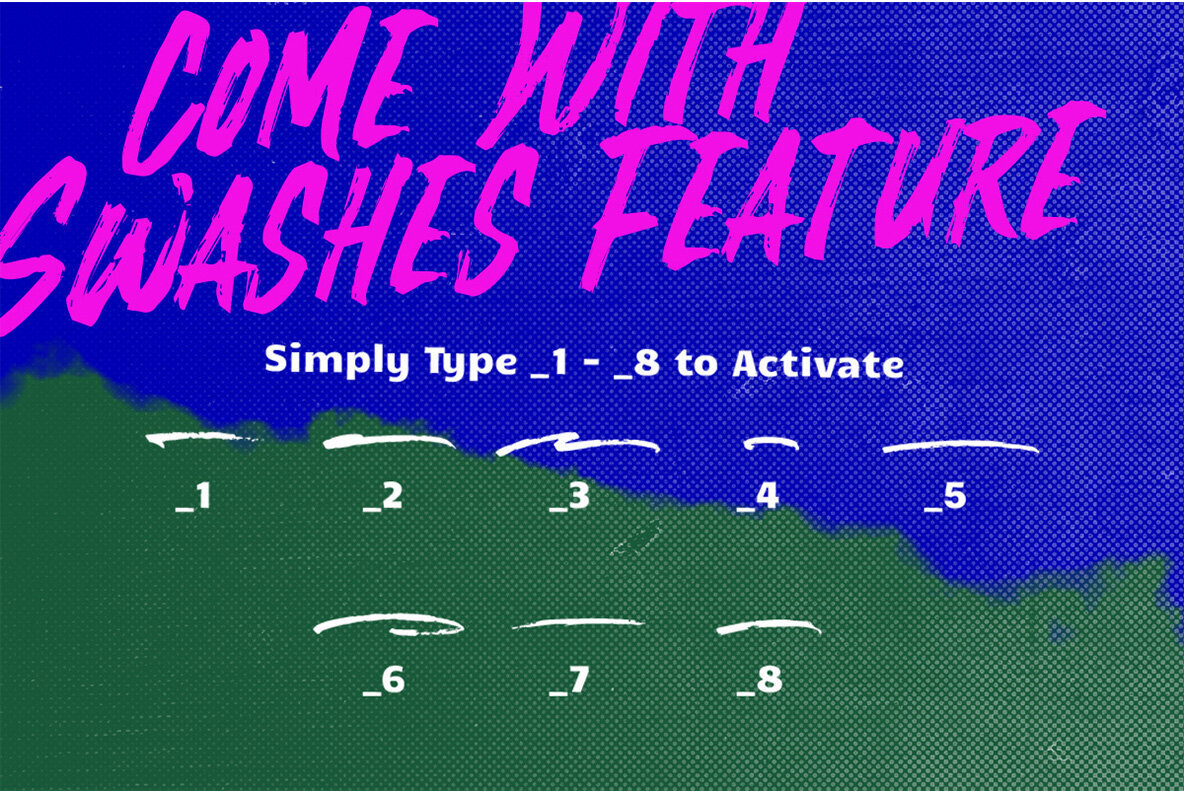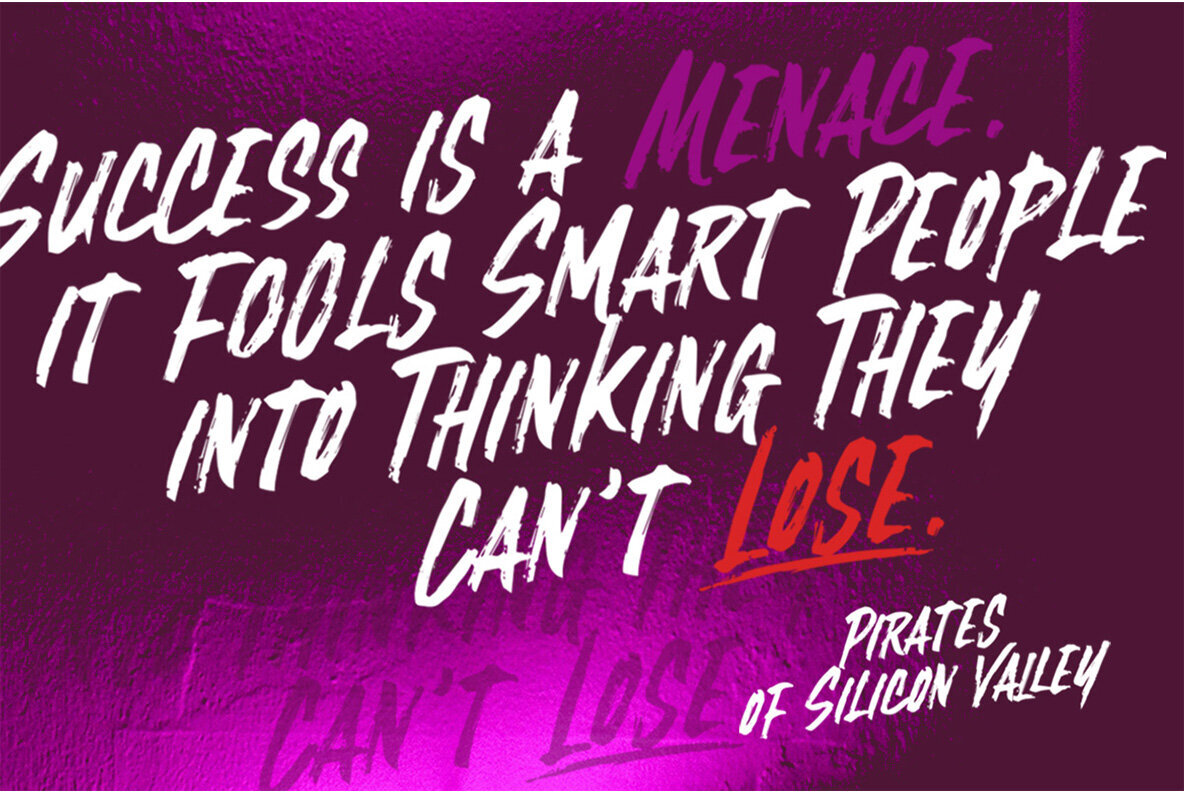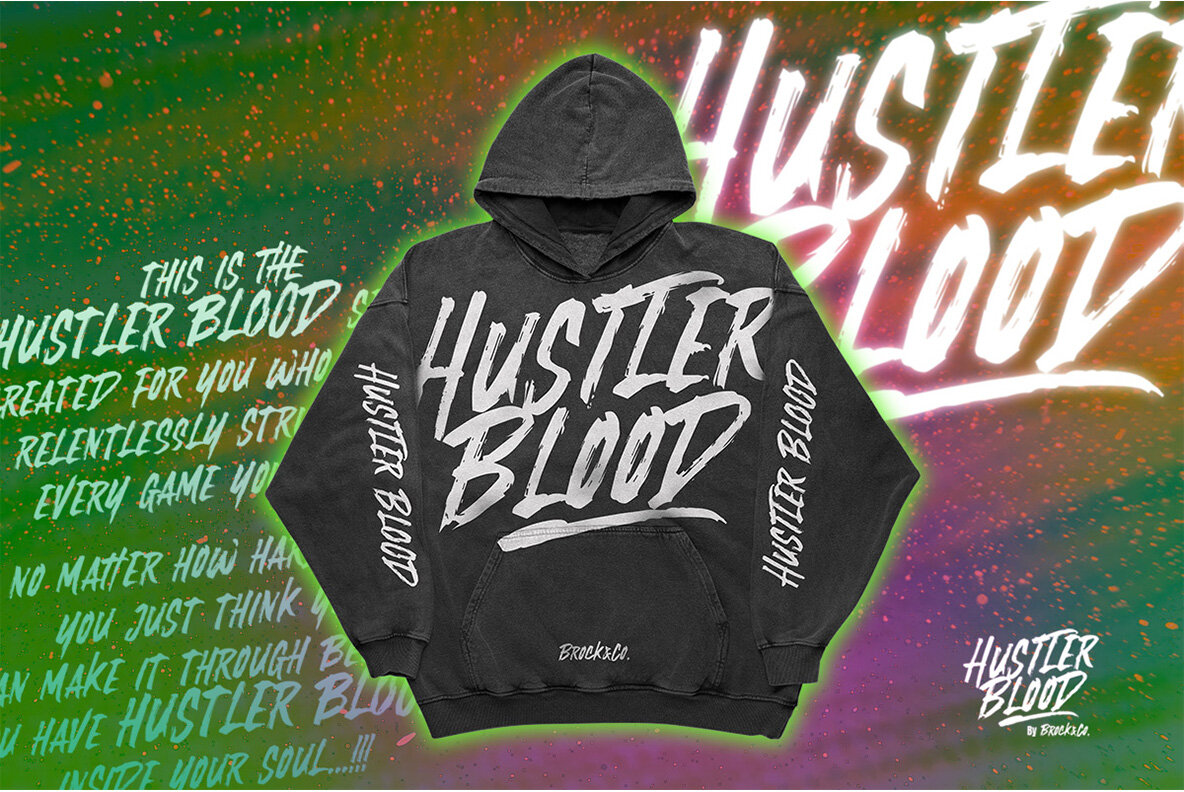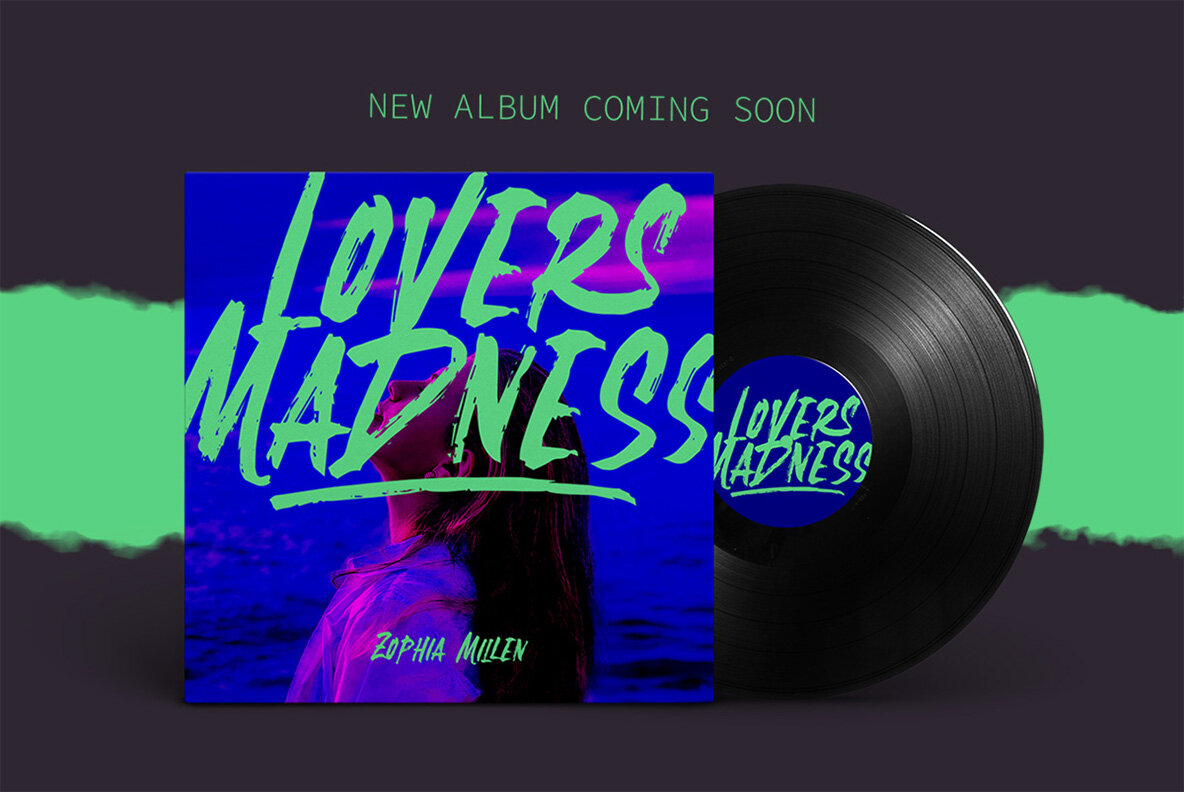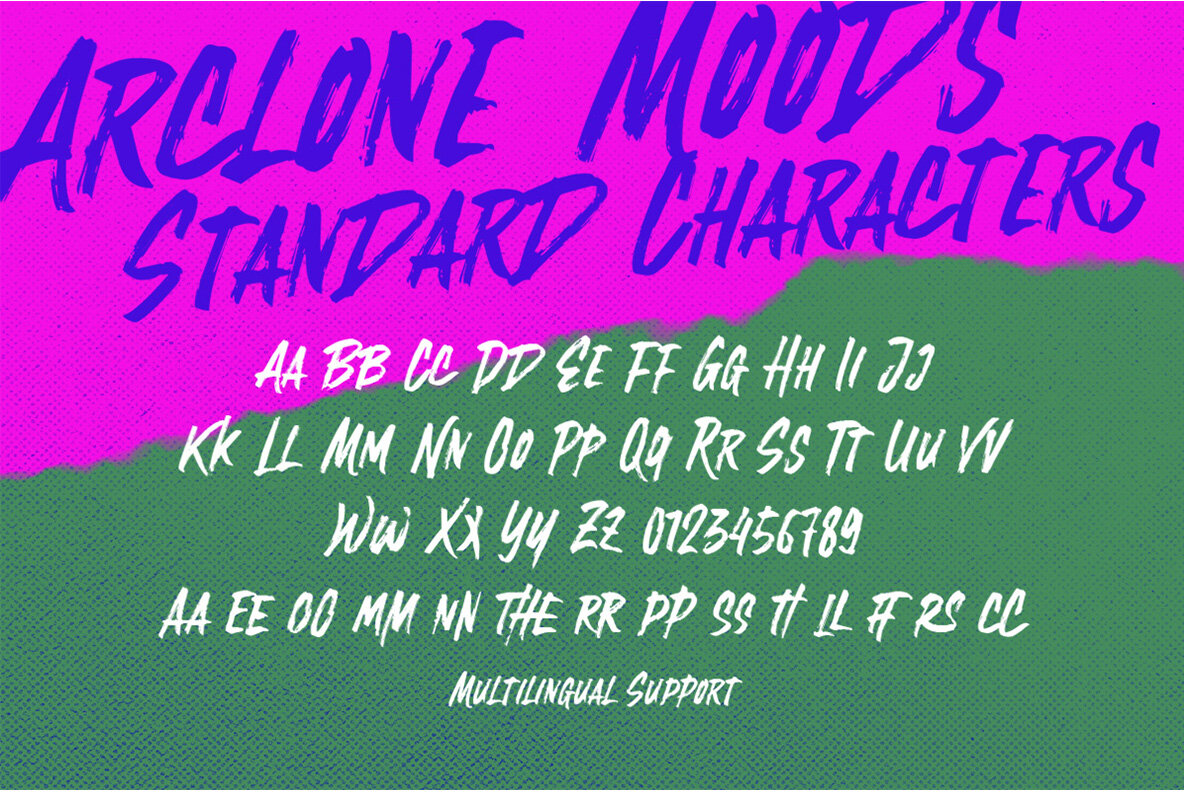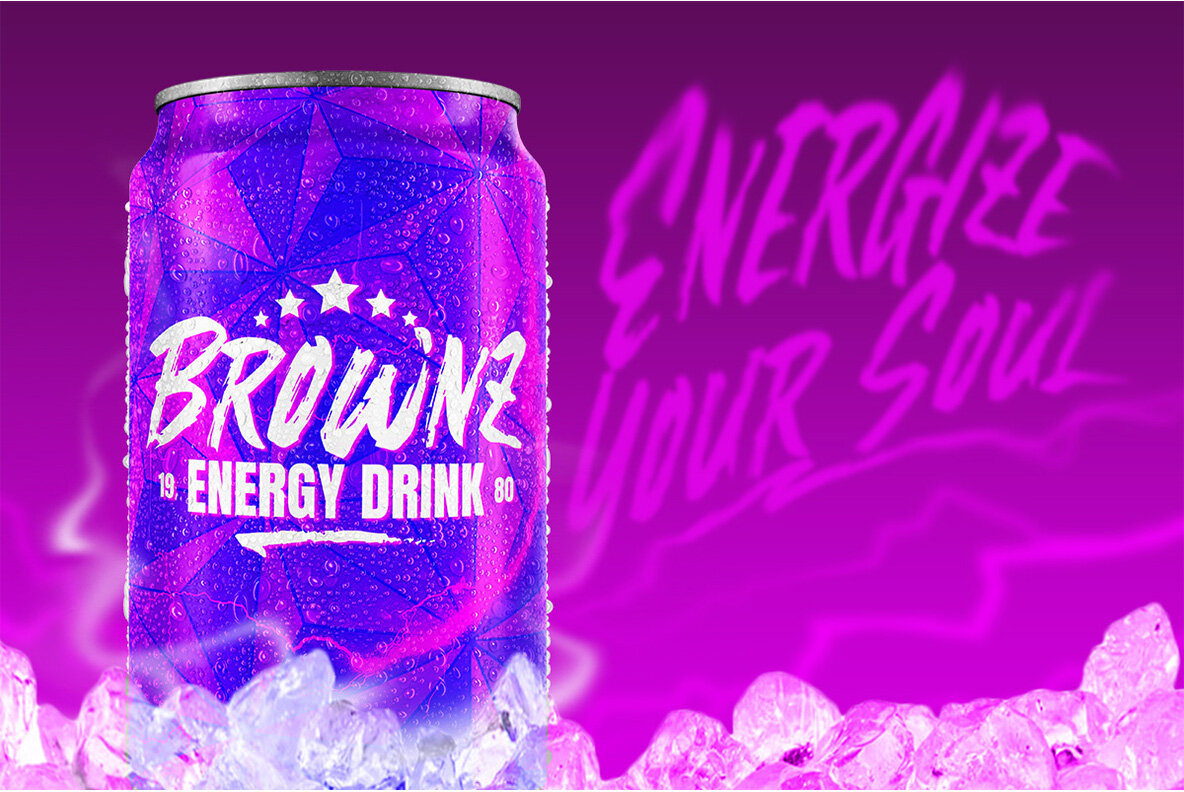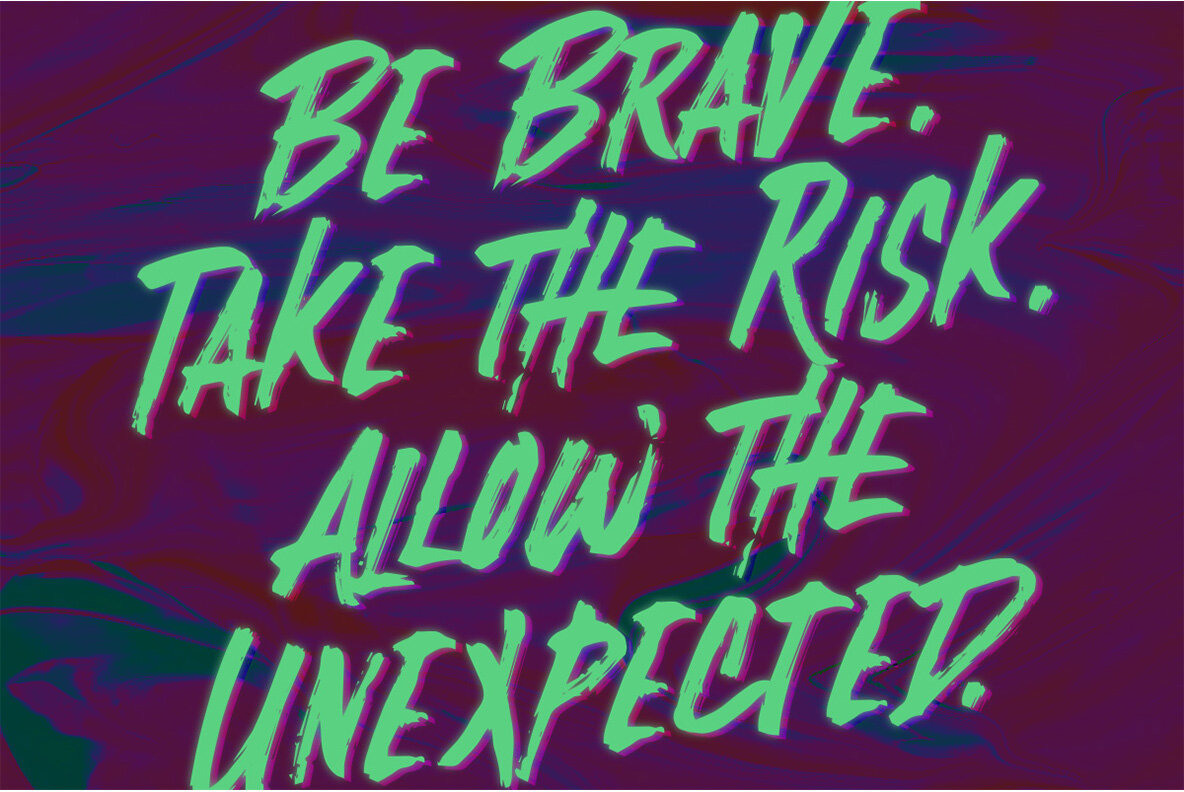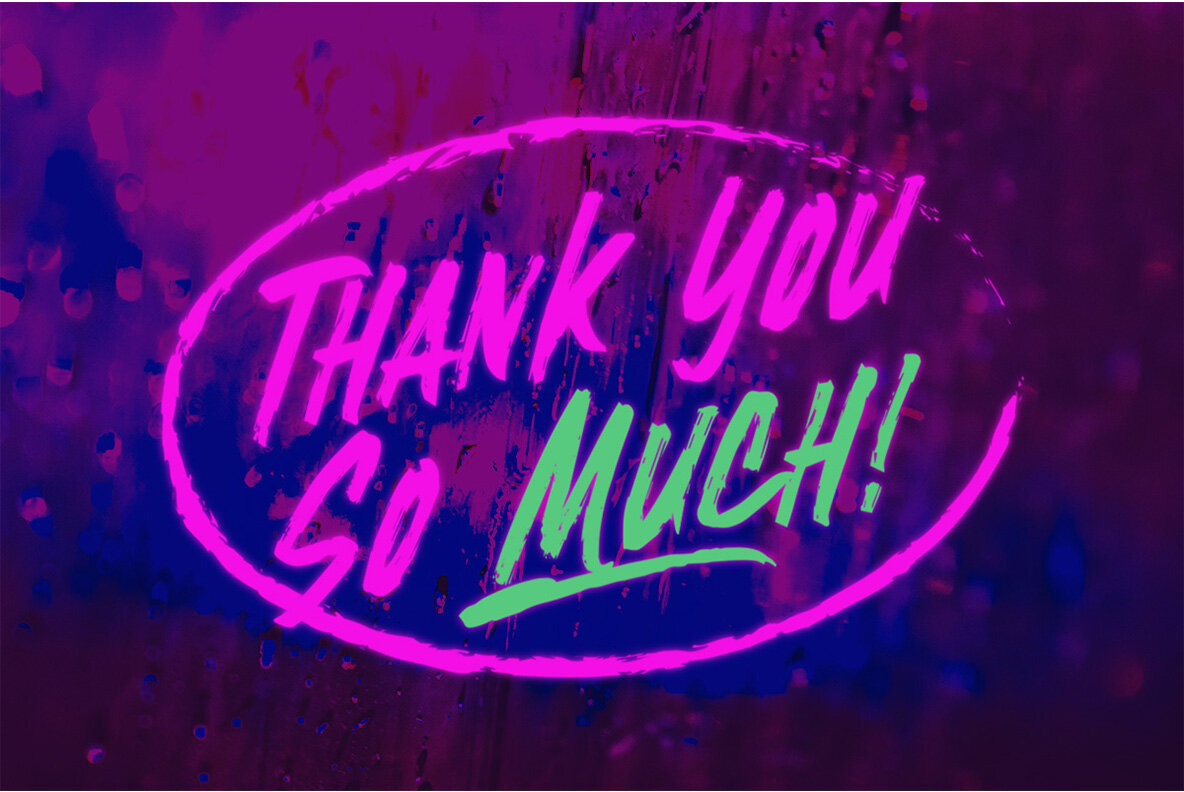
Arclone Moods Font
Arclone Moods Regular
Arclone Moods is an edgy, heavily stylized script that will make your headlines stand out.
Features :
- Numbers and Punctuation